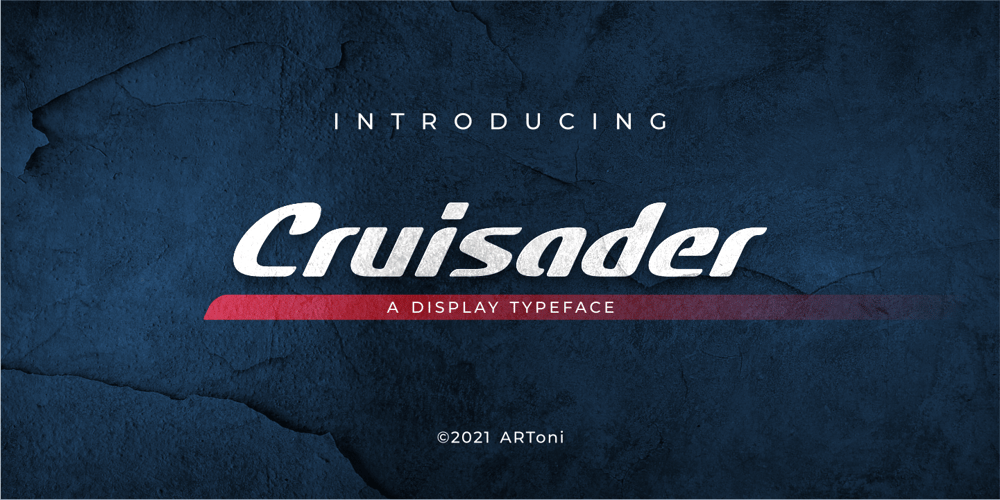
Cruisader Font Family was designed by Anthonie Van Hayu and published by ARToni. Cruisader contains 1 styles and family package options. Cruisader is a cool, fresh and modern display font. This font would be ideal for writing web designs, business cards, or pretty much anything else that requires a unique touch.